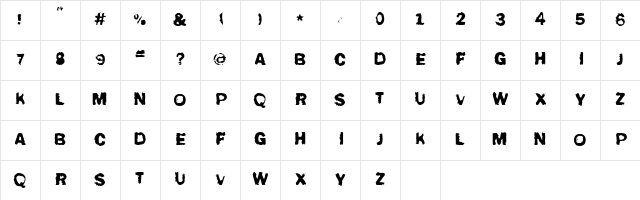
All your font are belong to us Regular
Design Context for All your font are belong to us
All your font are belong to us is a composed and adaptable typeface that performs quietly and consistently across a wide range of design contexts.
Pro Tip: Use All your font are belong to us in both headline and body roles to test its range before committing to a single application.